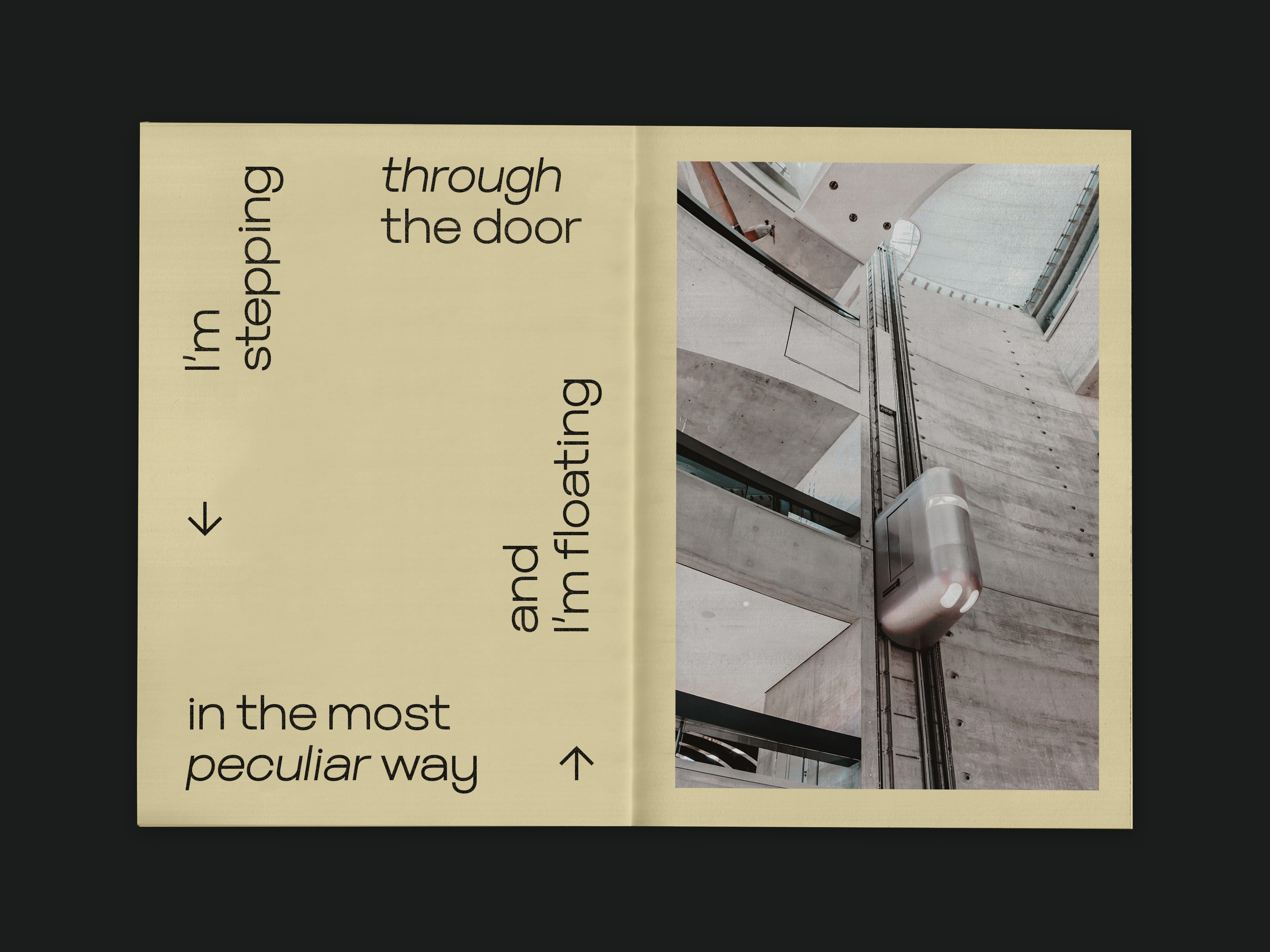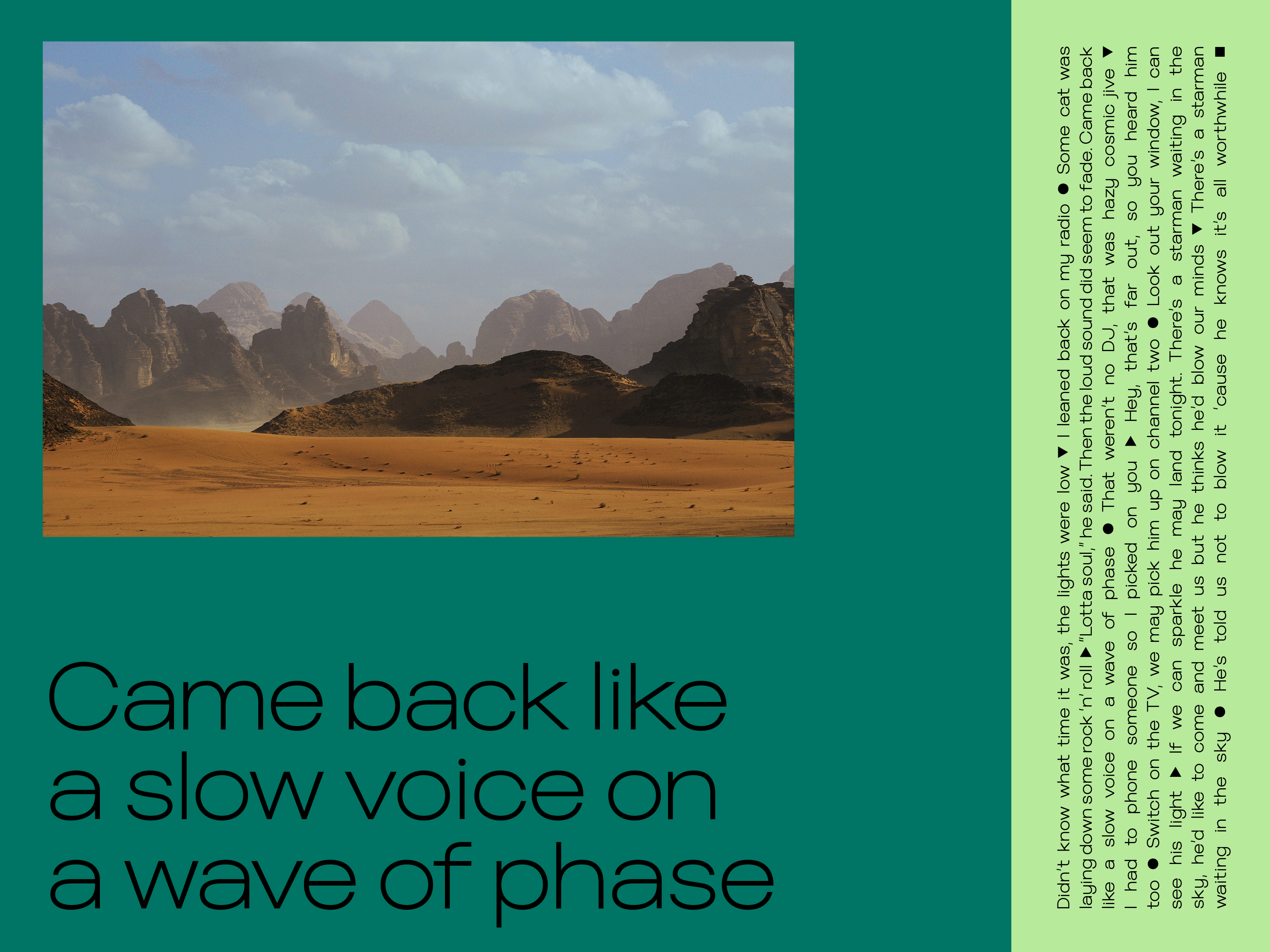
Holografik is a Neo-Grotesk sans serif font inspired by scientific progress, existential wonder, and social oneness. With its wide structure and light airy weights, Holografik is an optimistic take on a Grotesk font. The stark Swiss style of the characters is softened with playful curved details. It’s ideal for use at larger scales like headlines, packaging, editorial, branding, and posters.
Holografik comes in three weights and italics, with punctuation, glyphs, diacritics, numerals, icons, and multilingual support. OpenType features include stylistic alternates.